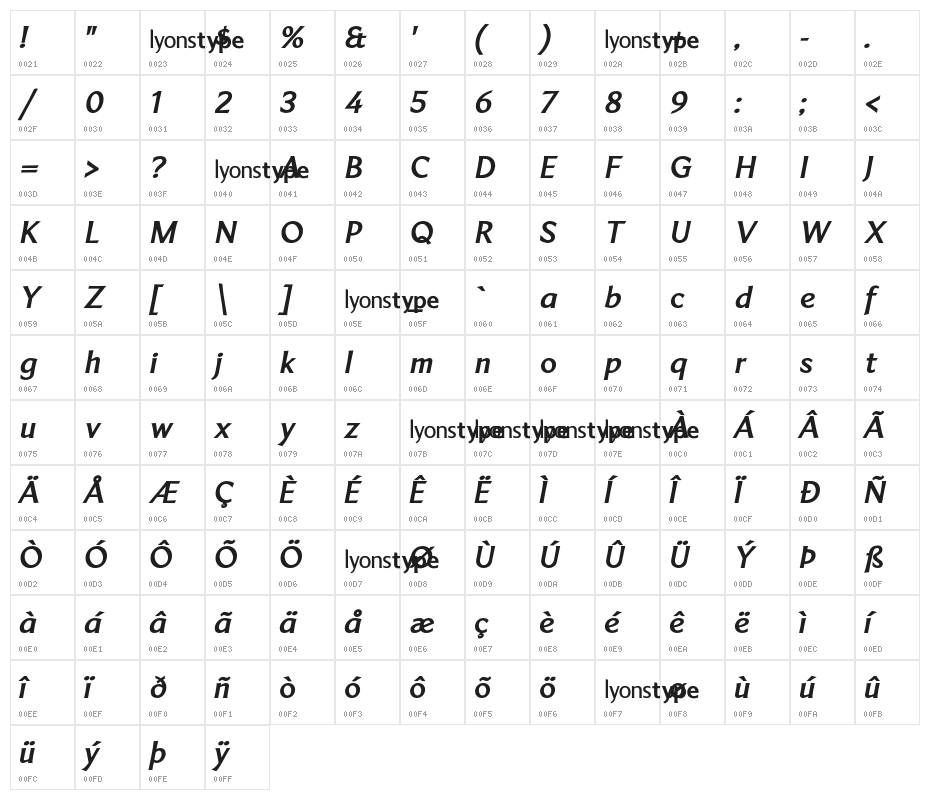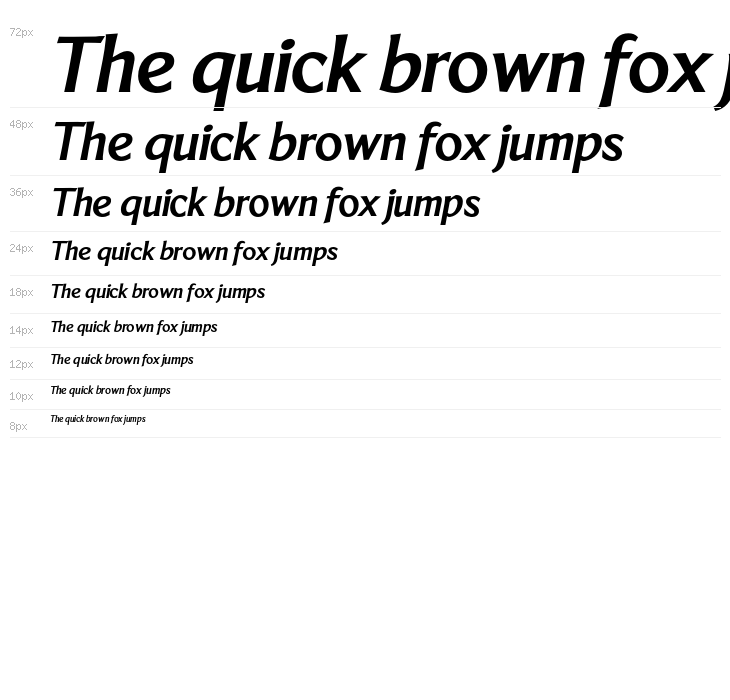
LTMarathon-BoldItalic Font
LTMarathon-BoldItalic Description
This typeface exhibits a dynamic and modern style with a pronounced italic slant, giving it a sense of motion and elegance. The characters are bold, with a consistent stroke weight that enhances readability while maintaining a stylish appearance. The uppercase letters are tall and commanding, while the lowercase letters are well-proportioned, offering a harmonious balance. The numerals are clear and distinct, making them suitable for various applications. Special characters are thoughtfully designed, complementing the overall aesthetic. This font is versatile, suitable for both digital and print media, and can be used to make a strong visual impact.
| Proposed Projects | Ideal for branding, advertising, headlines, and editorial design. |